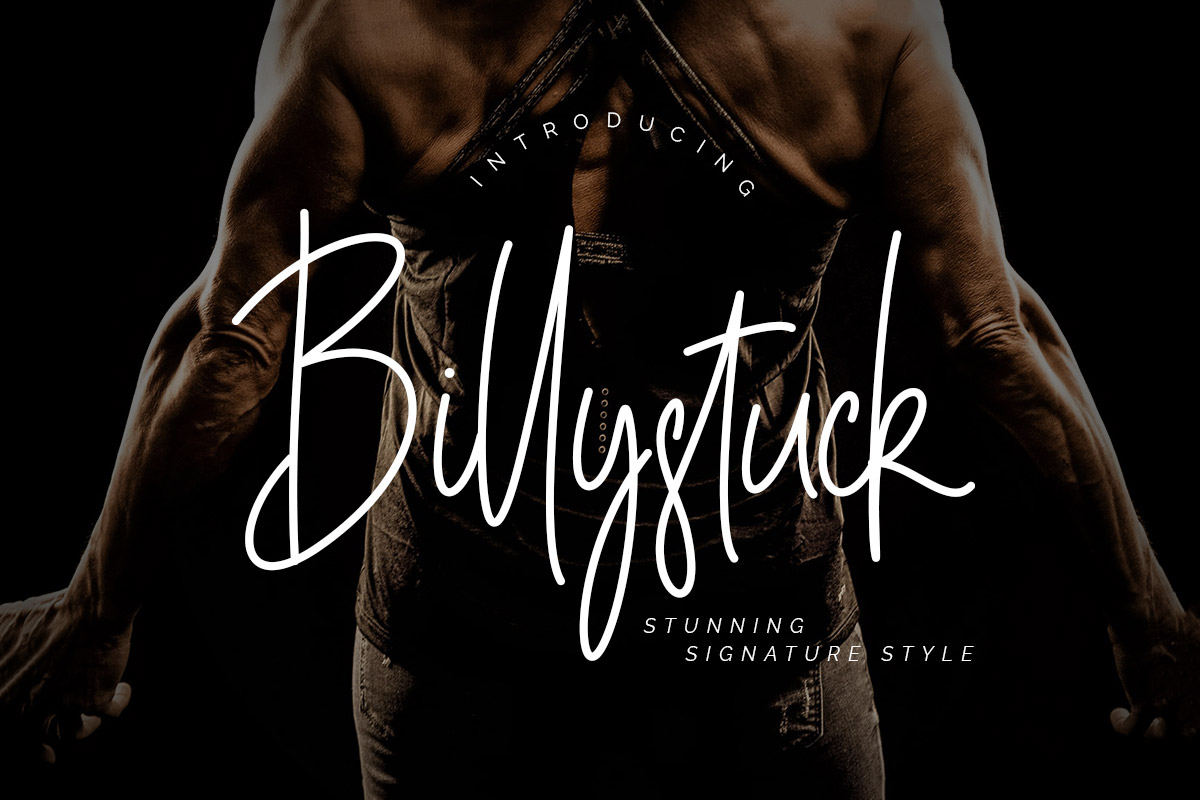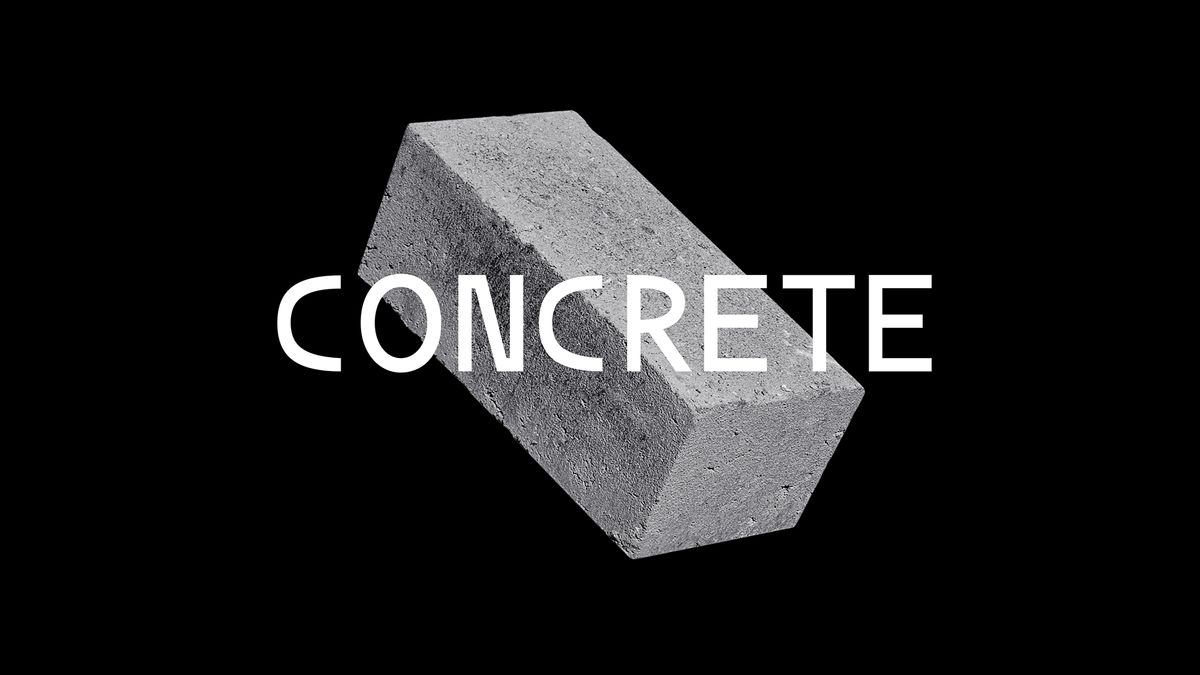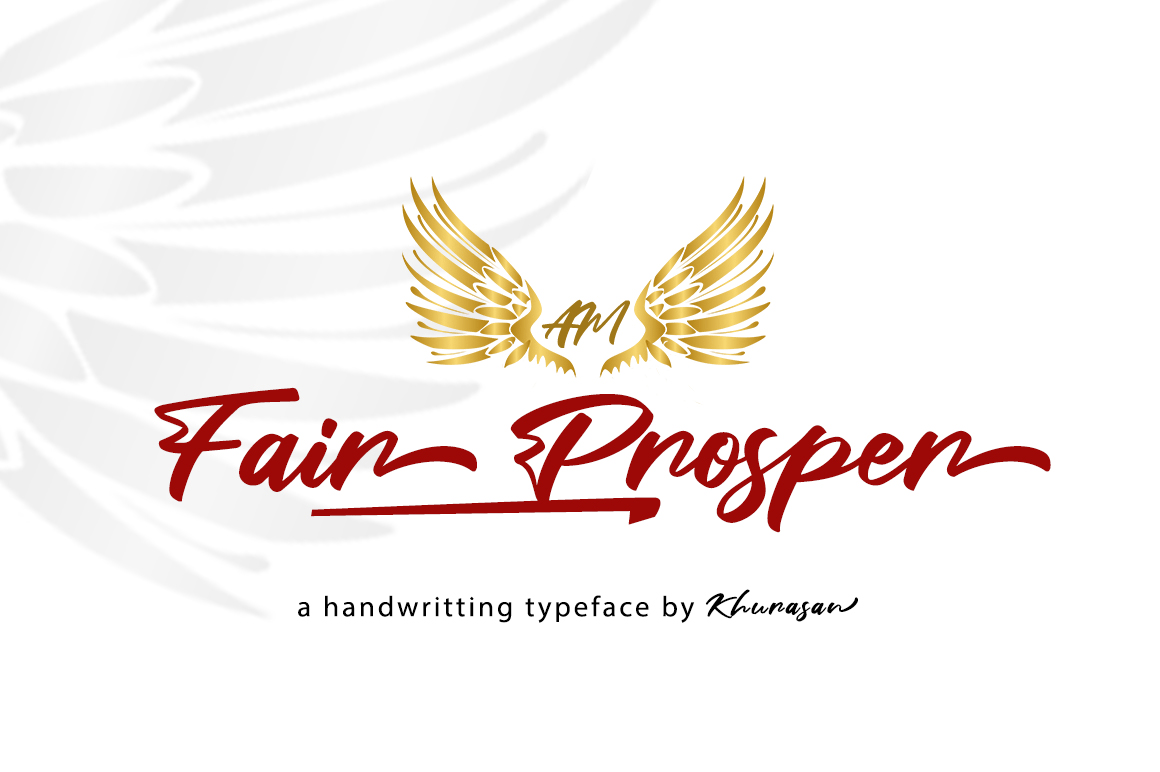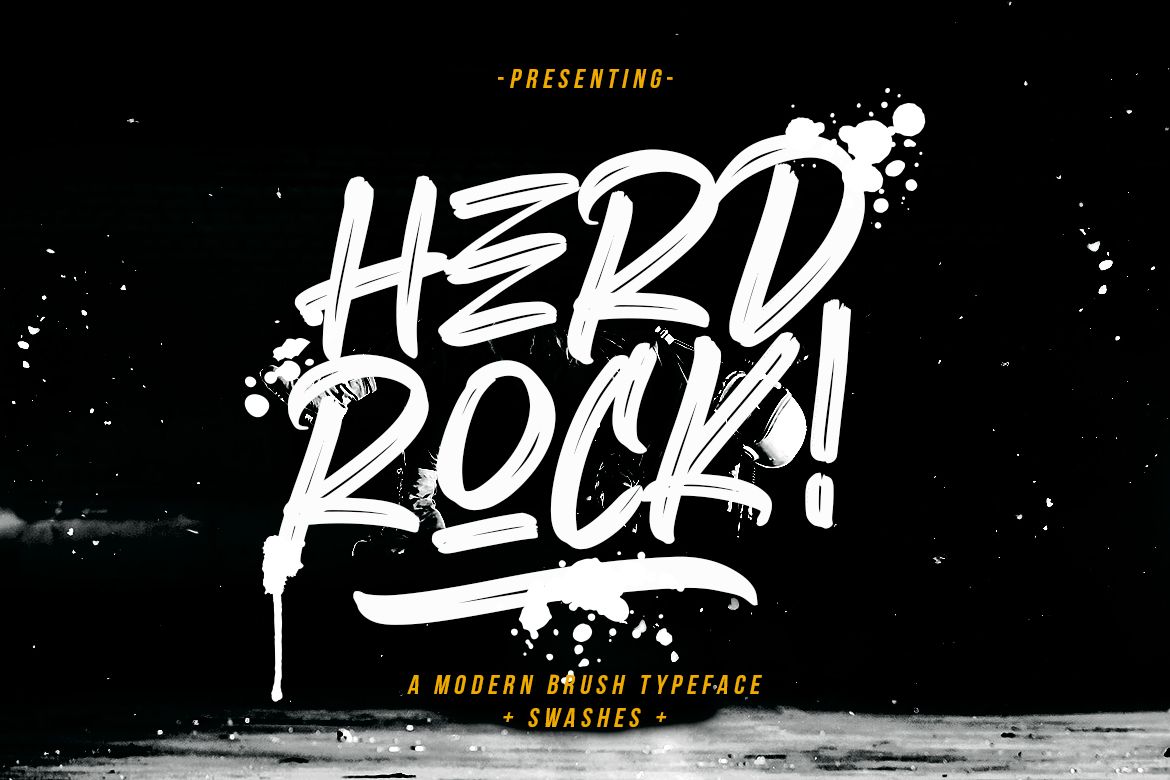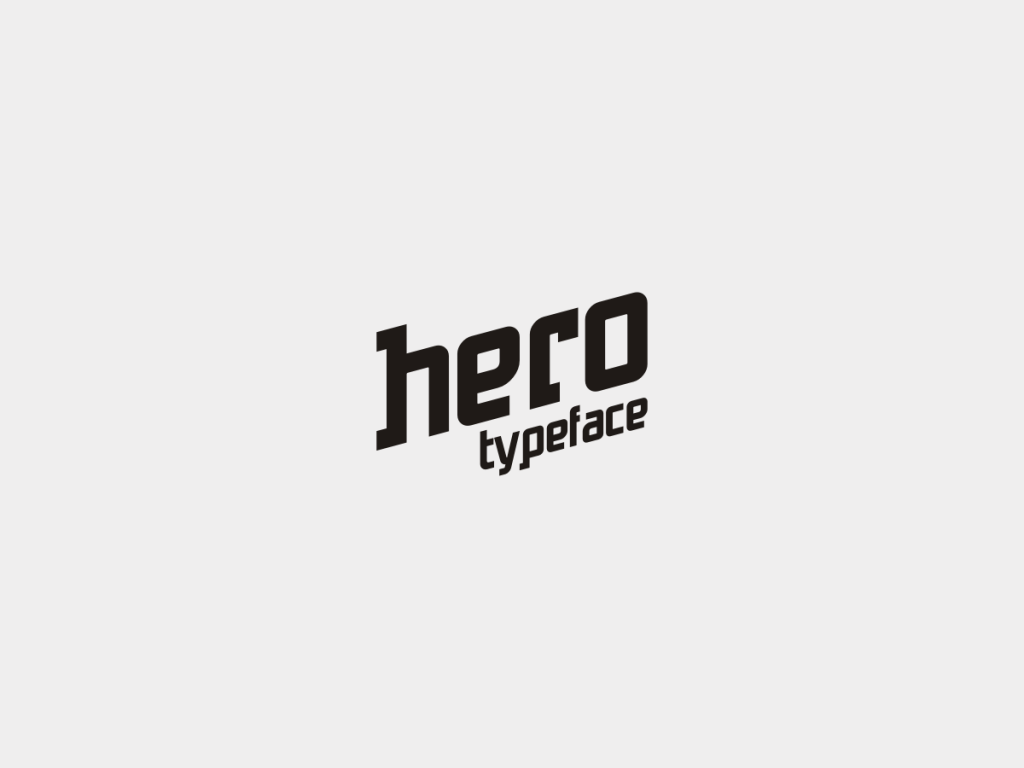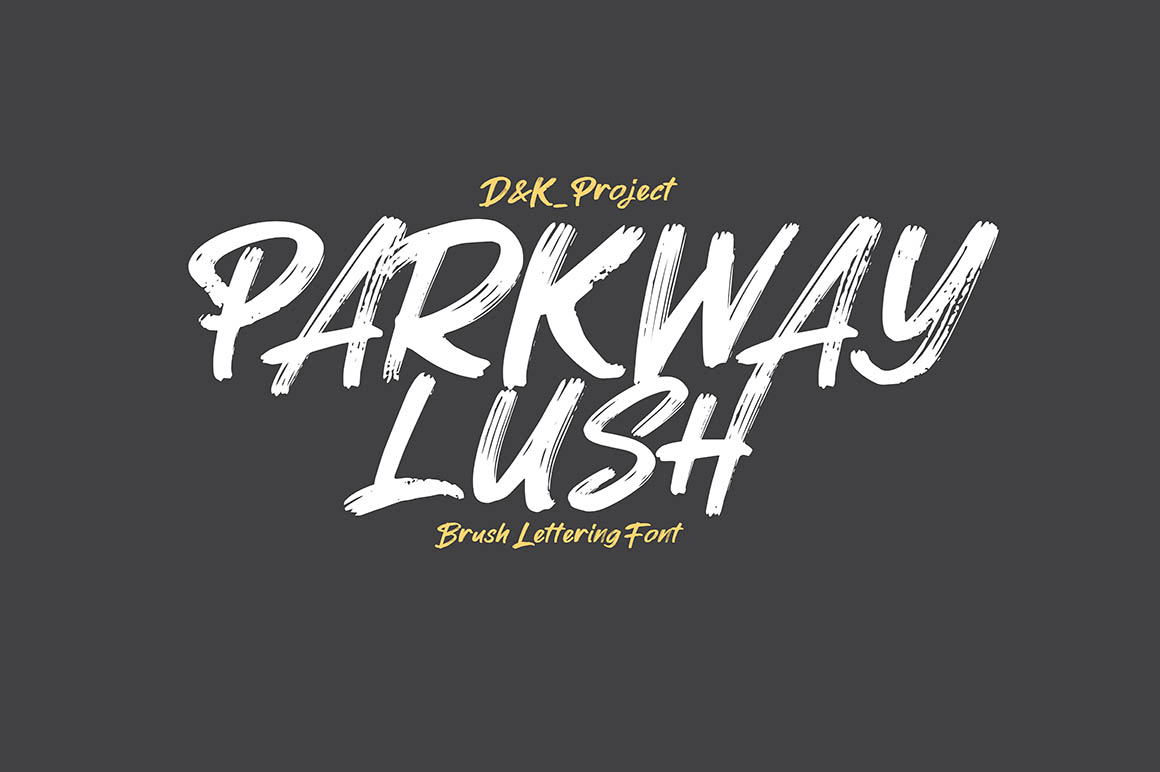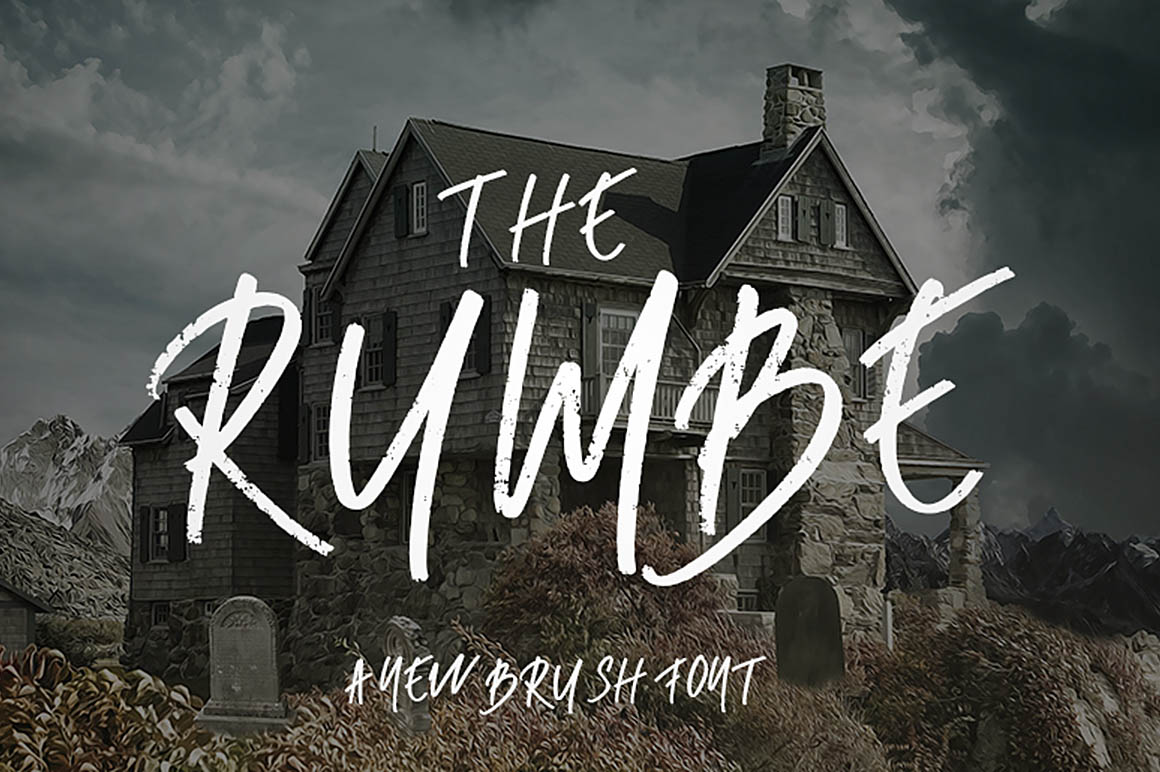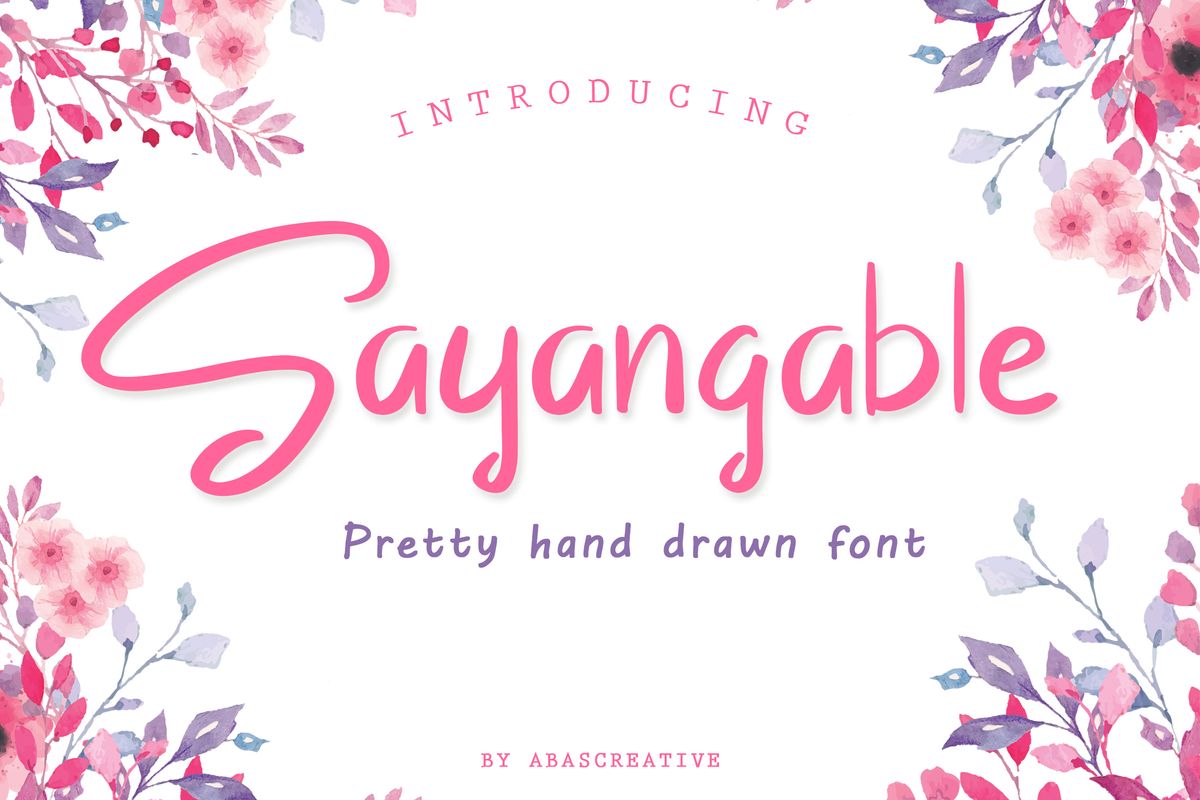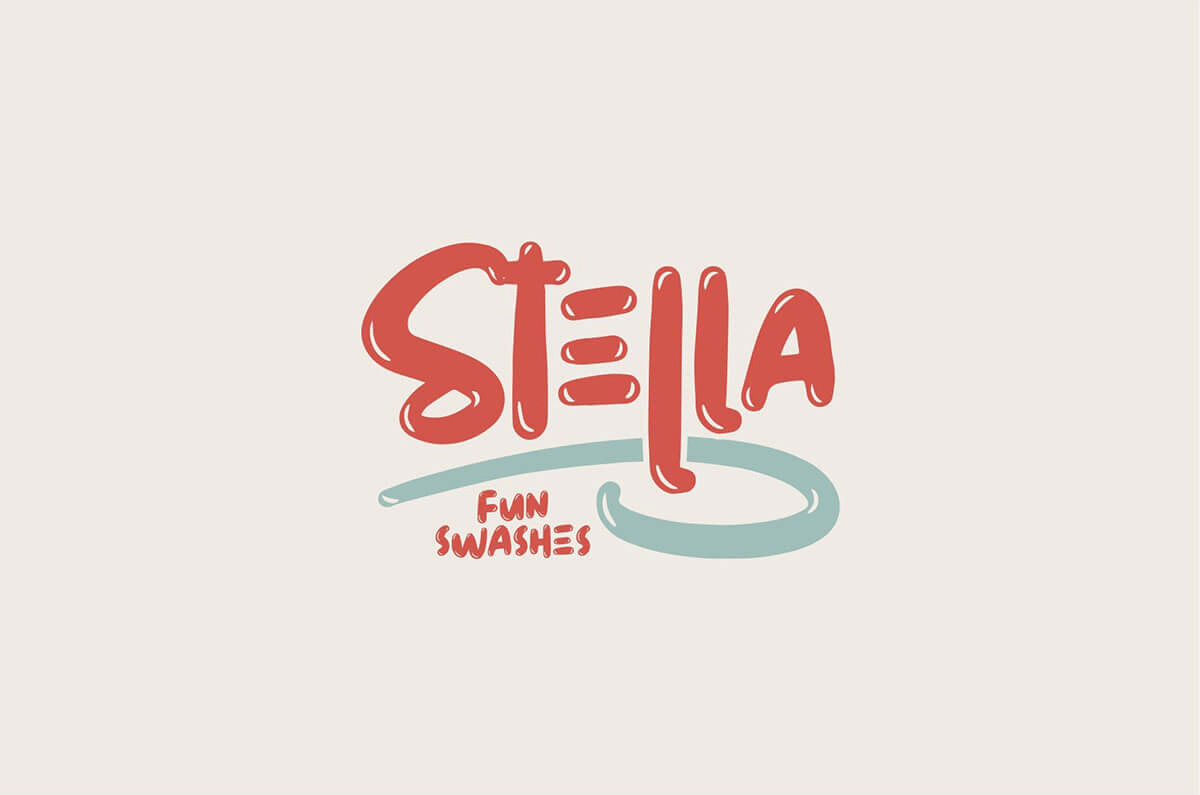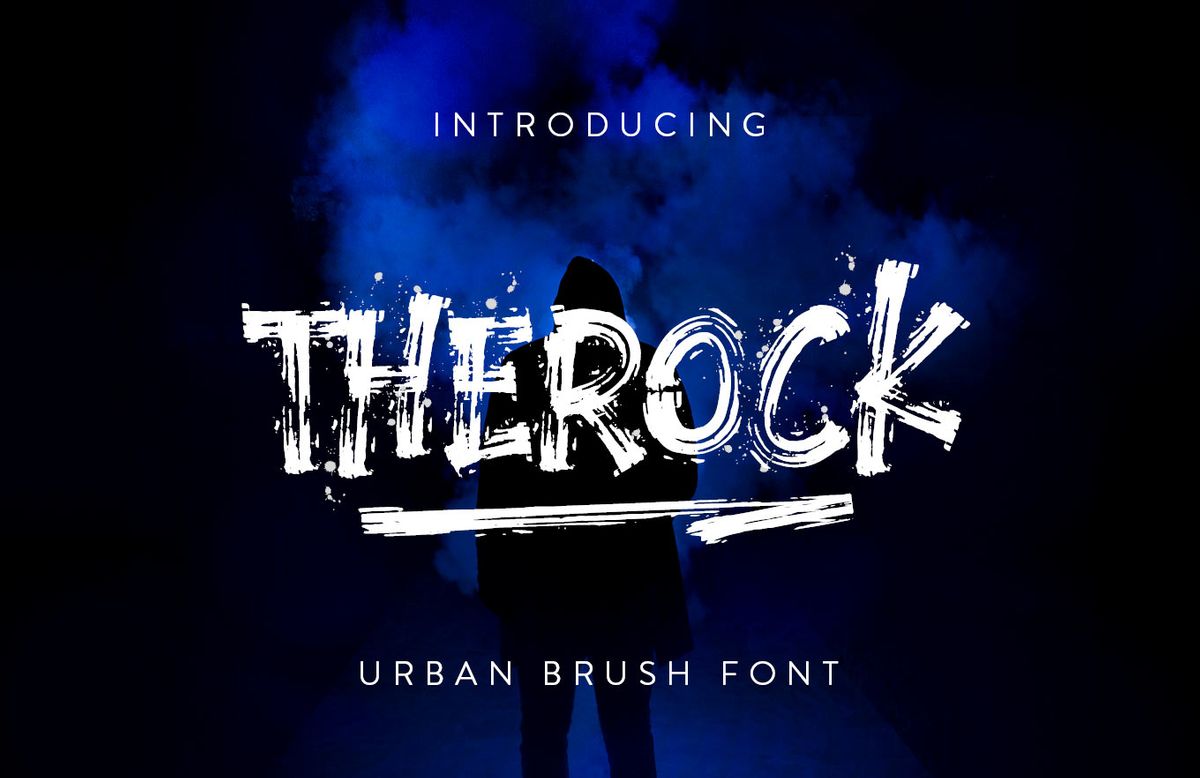
23 New / Free Fonts for Outstanding Typography Design
Latest awesome free fonts handpicked from various places to this great post. Collection based on clean and elegant script fonts, sans-serif fonts, brush fonts and modern creative fonts for logo design, branding projects, apparel, business cards, Web UI, packaging, advertising, book cover design, social media posts and blogs, e-commerce and any type of print or web invitations and many others print designs.
Here are 23 New Free Outstanding Fonts, special made for your awesome work. The following typefaces and fonts are ideal to make an attractive design and fit for any artwork. Enjoy!
Yessica Free Sans Serif Font
Stella Free Display Font
The Rock Brush Font
Parkway Lush – Free Font
Theygi – Free Font
Rumbe – Free Font
Sonara Font Family
Gallagher Font
Hero Free Typeface
Mariane Lusia Free Font
Free White Pinky Handwritten Font
Aperto Free Font
Herdrock Free Font
Fair Prosper Free Font
Billystuck Signature Free Font
Olivine Medium Font
Free Daaron Sans Serif Font
Sayangable Free Font
Wandertucker Free Font
Thankfully Free Handwritten Font
Concrete Free Font
Bangladesh Free Font
Sycamore – Free Display Font